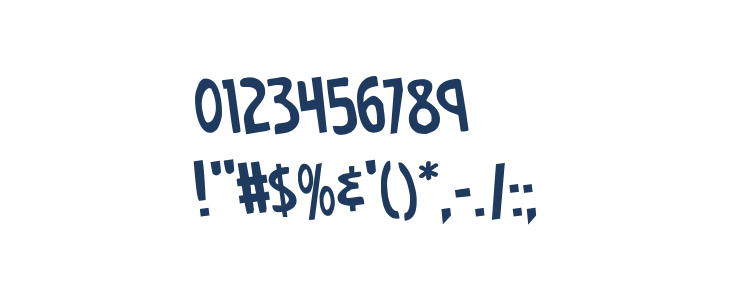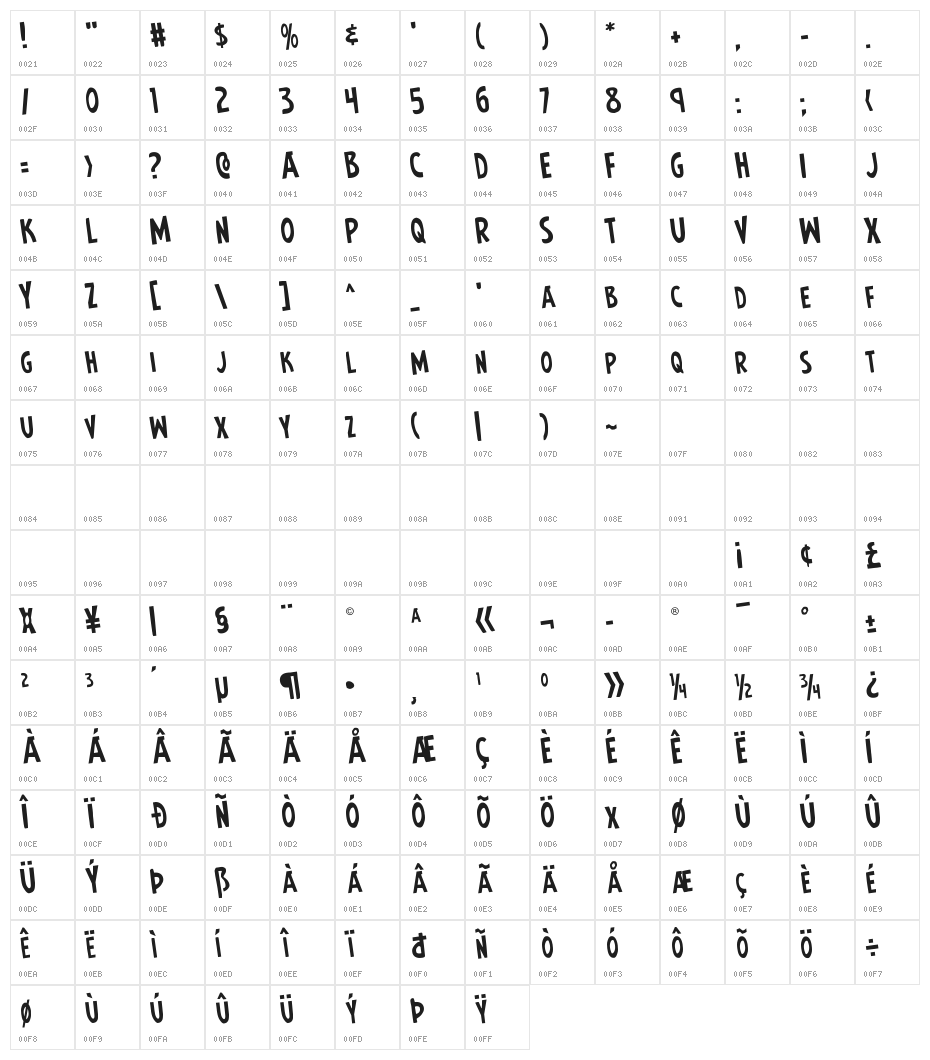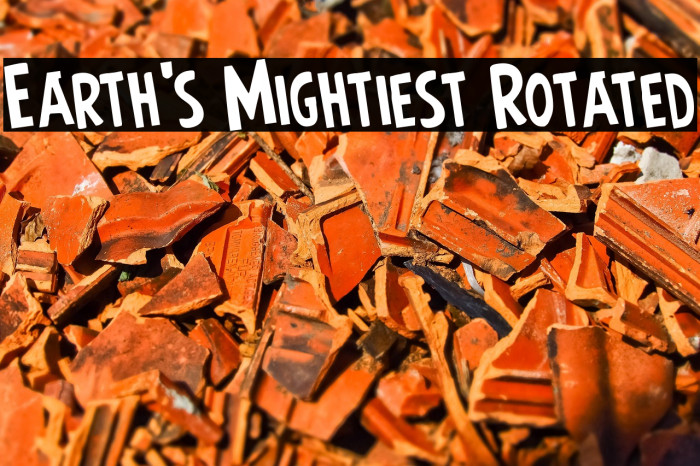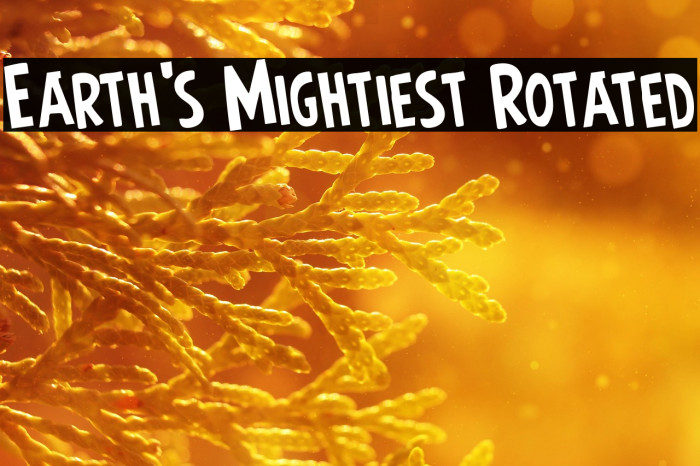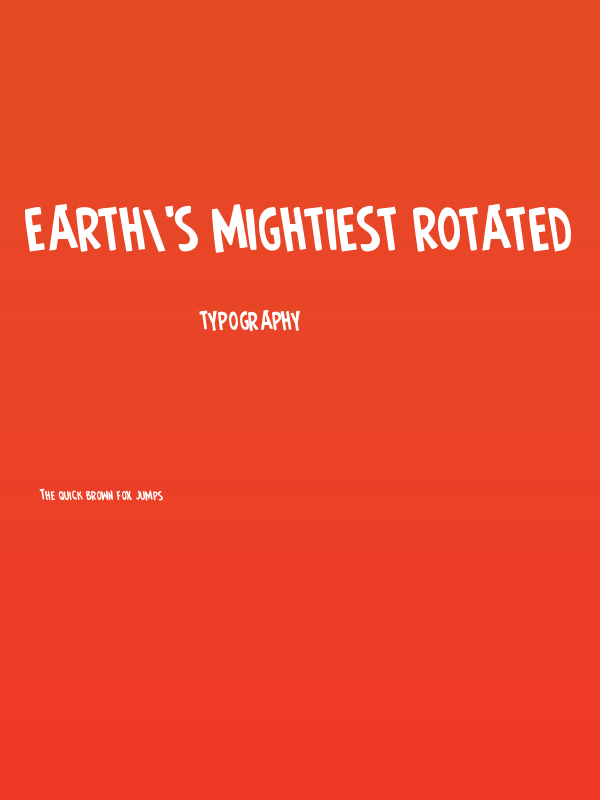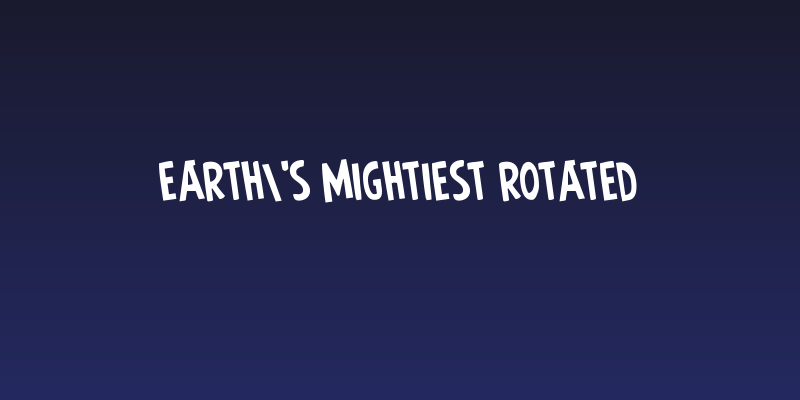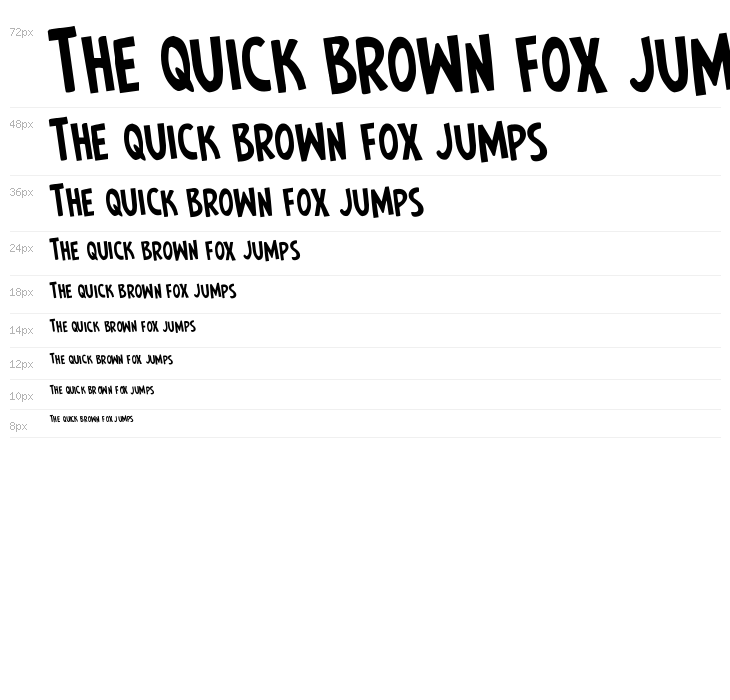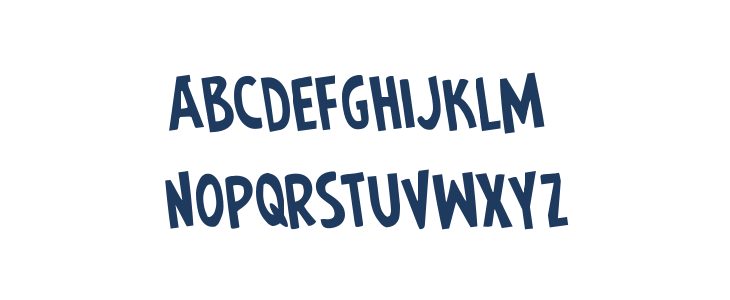
Earth's Mightiest Rotated Font
Earth's Mightiest Rotated Description
This font features a bold and dynamic style with a slightly slanted orientation, giving it a sense of movement and energy. The characters are thick and robust, with a playful yet assertive appearance. The uppercase letters are particularly striking, with a strong presence that commands attention. The lowercase letters maintain the same boldness, ensuring consistency throughout the text. Numbers and special characters are equally bold, making them stand out effectively. The overall design is modern and eye-catching, suitable for projects that require a strong visual impact.